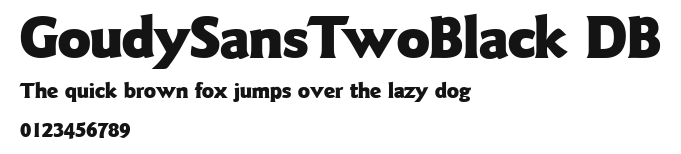
GoudySansTwoBlack DB Preview
• Font Name: GoudySansTwoBlack DB
• Full Font Name: GoudySansTwoBlack-Regular DB
About GoudySansTwoBlack DB.ttf
GoudySansTwoBlack DB.ttf is a modern, elegant sans-serif font designed for ultimate readability and visual harmony. Perfect for branding, headlines, web design, and print materials.